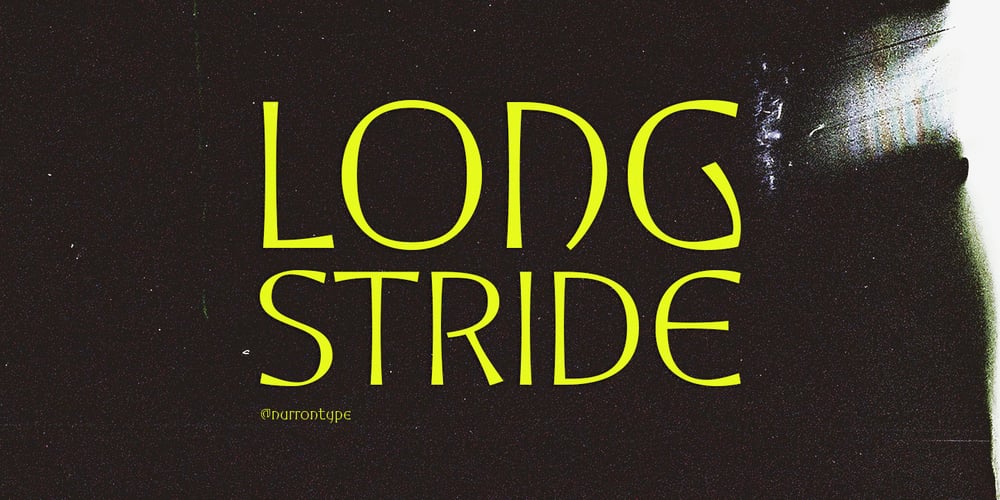
Longstride Font Family was designed by Nurron Shodiqin and published by Nurrontype. Longstride contains 1 styles and family package options. Longstride was inspired by Romans letterforms. A low contrast charismatic typeface with uppercase, lowercase, small caps, numeral, and multilanguage support. I also add ligature and alternate options to make it more versatile when you use it in your project.